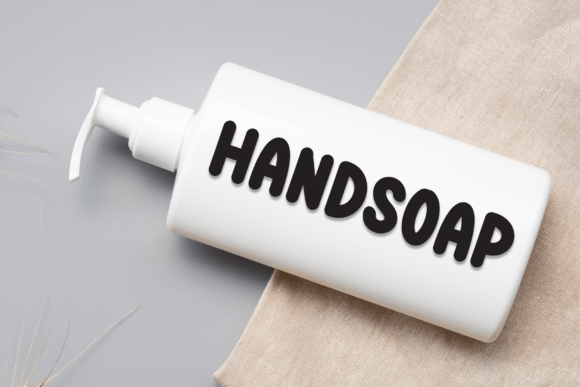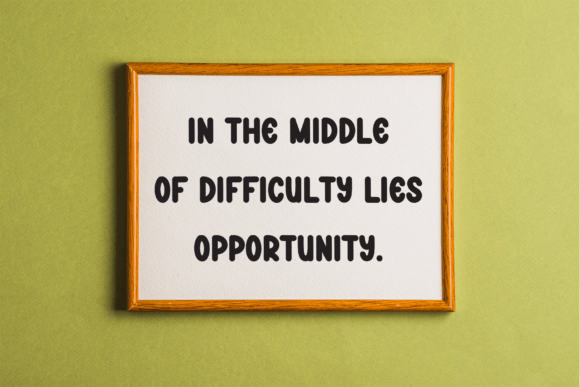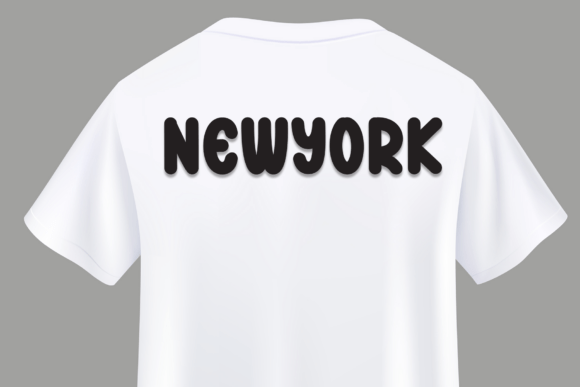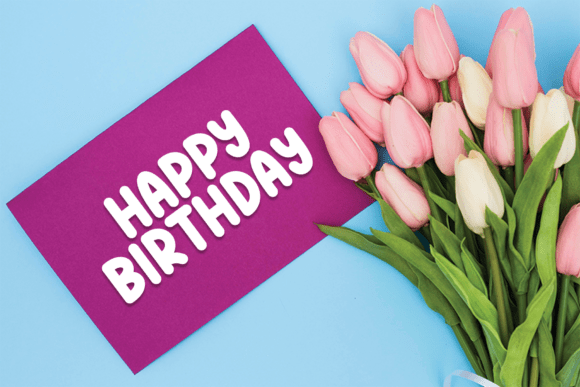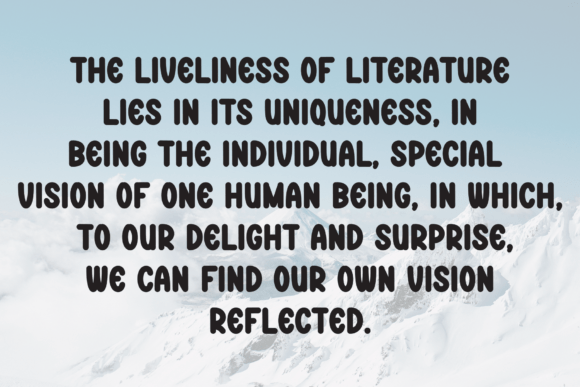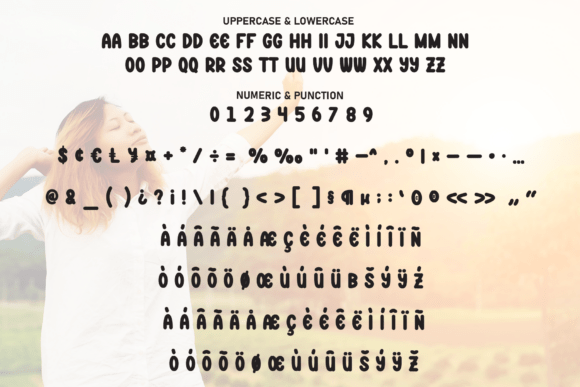
The Dream Sunshine Font: A Ray of Freshness for Your Designs
Have you ever been in the middle of a design project, and suddenly, the font you’ve been using just doesn’t cut it anymore? You’re not alone! I recall working on a branding project for a new eco-friendly product line, and my go-to font just wasn’t conveying the freshness and friendliness the client wanted. That’s when I stumbled upon the Dream Sunshine font, and it was like a ray of sunshine (pun intended!) in my design world.
An Honest Review: The Good and the Quirks
What I Love About Dream Sunshine ✨
- ✅ Clean lines and relaxed structure: This font exudes a sense of calmness and approachability, making it perfect for designs that need to feel friendly and welcoming.
- ✅ Versatility: Dream Sunshine works beautifully for packaging, posters, social media graphics, and more – its adaptability is a huge plus!
- ✅ Polished appearance: Despite its casual vibe, the font maintains a level of sophistication that’s hard to achieve with display fonts.
- ⚠️ Limited use in very formal contexts: While Dream Sunshine is versatile, it might not be the best fit for very formal or traditional designs, such as corporate reports or luxury brands.
- ⚠️ Glyph variety: Some users might find the glyph selection a bit limited compared to other display fonts, although what’s available is well-curated.
Exploring Alternatives: Similar Fonts to Dream Sunshine
- Great Vibes: A fun, energetic script font perfect for designs needing a more dynamic feel, such as event posters or casual social media posts.
- Pacifico: A beautiful, elegant script that adds a touch of sophistication while still feeling friendly and approachable, ideal for branding or website headers.
- Lato: A versatile sans-serif font that pairs well with Dream Sunshine for body text or when a cleaner look is needed.
- Playfair Display: For a more luxurious feel, this elegant display font can complement Dream Sunshine in designs requiring contrast.
The Story Behind Dream Sunshine: Designer Inspiration
While the actual origins of Dream Sunshine are not well-documented, it’s easy to imagine a designer inspired by the warmth and optimism of a sunny day creating this font. Perhaps they aimed to craft a typeface that felt both modern and effortlessly friendly, perfect for creative projects that needed a bit of warmth and personality.
Q: Is Dream Sunshine suitable for body text?
A: While Dream Sunshine is primarily a display font, its readability and clean design make it usable for short paragraphs of body text, especially in digital formats.